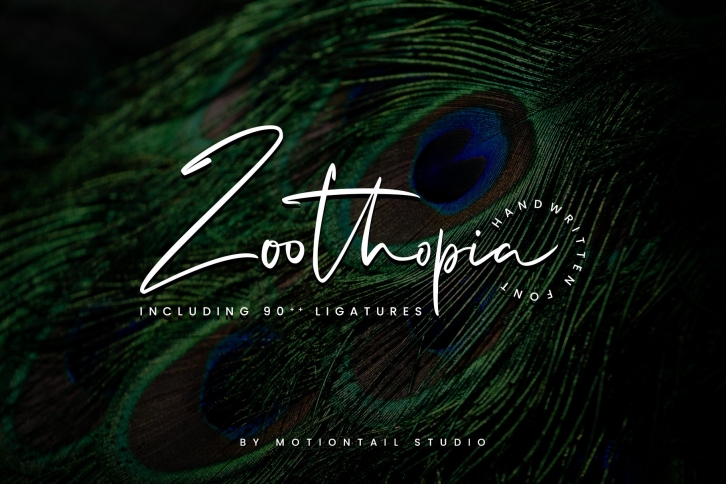
Zoothopia is a beautiful font that was designed by Motiontail Studio. It's a great choice for designers and creatives who need such a font. It was released on November 21, 2020 and the file size is 4.51 MB. Zoothopia may give a more youthful, expressive and casual look to your project. It is a very beautiful, refined, elegant, and high-quality font.